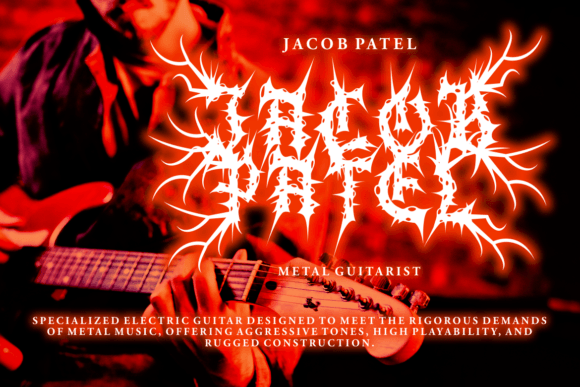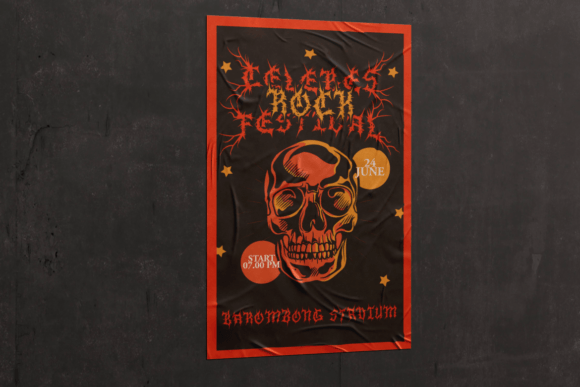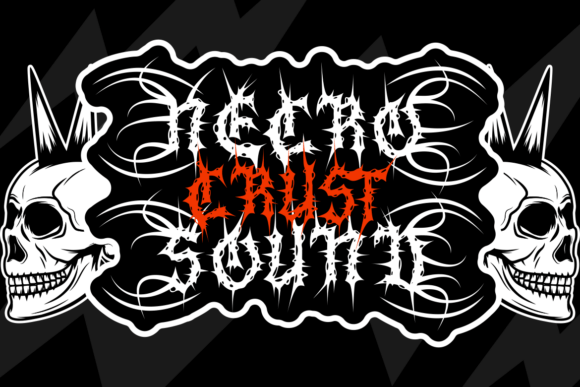
Unleashing the Fury: Introduction to Silent Scream Font
Do you remember that moment when you stumble upon the perfect font for your creative project? The one that makes your design come alive, and you know you’ve found a true design treasure? For designers who crave that edgy, intense vibe, we’ve got just the thing – the Silent Scream Font. This powerful metal font is not just a design element, but a statement piece that will elevate your creative project to new heights.
With its sharp, spiked edges and organic, twisted lines, Silent Scream Font embodies the raw energy of the metal genre. Whether you’re designing album covers, posters, or band merchandise, this font is sure to make a bold statement. Its unique structure brings a sense of chaos and power to any text, making it a valuable resource for designers who want to take their creative projects to the next level.
Key Features of Silent Scream Font
- High-quality, professional font suitable for various design projects and creative endeavors.
- Designed with precision and attention to detail, resulting in a crisp and clear visual representation at 300 DPI resolution.
- Suitable for a wide range of design applications, including posters, flyers, brochures, and digital media.
Honest Review: Silent Scream Font
I recently had the chance to work with the Silent Scream Font and I must say it’s a great addition to any designer’s toolkit. This free download is a fantastic resource for creative projects, and its high quality makes it perfect for use in a variety of applications.
- ✨ High quality design that looks great on any background
- ✨ Easy to use and customize for any project
- ✨ Compatible with most design software
- ✨ Great for use in creative projects that require a unique touch
- ⚠️ Limited availability of different font styles and weights
- ⚠️ Not ideal for use on a transparent background, as it may appear fuzzy
Overall, I’m impressed with the Silent Scream Font and would definitely recommend it as a design resource for anyone looking to add a unique touch to their creative project. Its high quality and ease of use make it a great choice for designers of all levels.
Tips for Getting the Most Out of Silent Scream Font
For the best results, use the Silent Scream Font on a high-quality design project. You can also experiment with different font sizes and colors to create a unique and eye-catching design.
The Silent Scream Font is a versatile design resource that can be used for a variety of creative projects, including posters, flyers, and social media graphics. It’s also a great option for designers looking for a free download with a transparent background.
Can I use the Silent Scream Font for a large-scale creative project?
Yes, the Silent Scream Font is designed to be scalable and suitable for large-scale creative projects. The font files are optimized for high-quality output, and the font’s design ensures that it remains clear and legible at any size. Whether you’re creating a logo, signage, or other design elements, the Silent Scream Font is a great choice for your project.